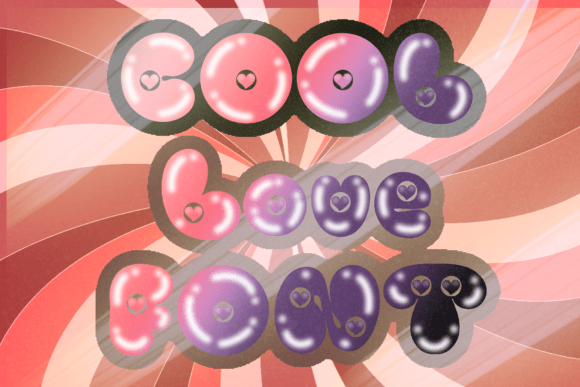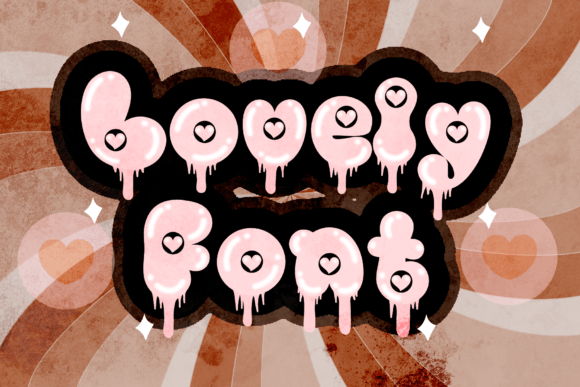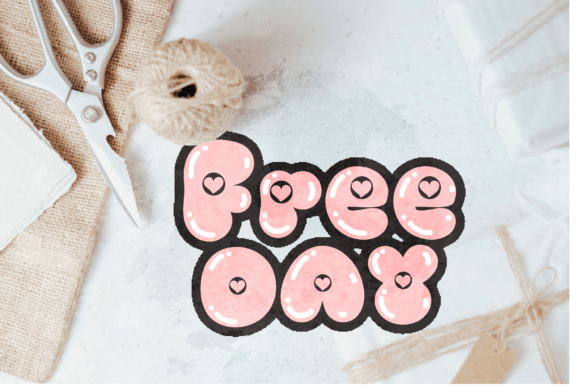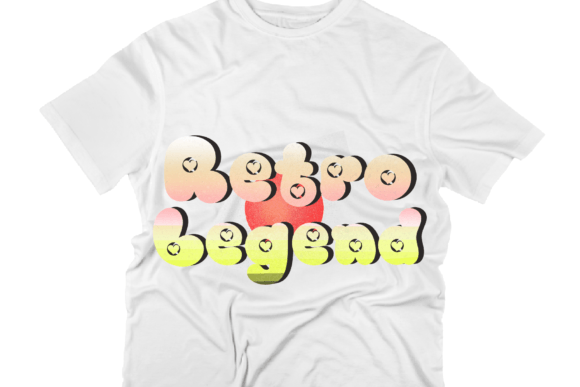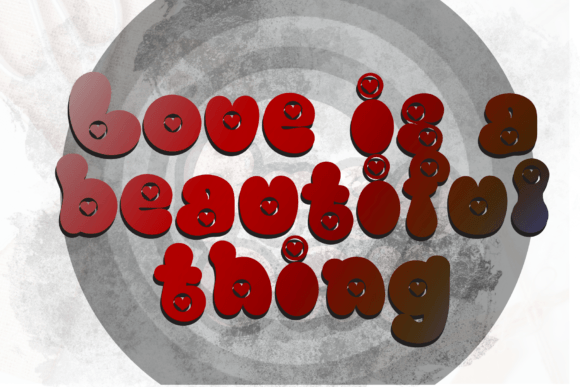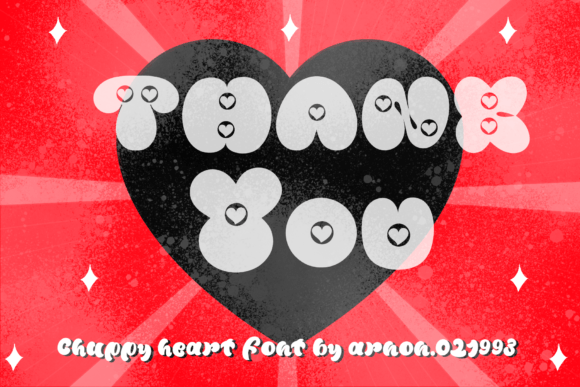
Introducing Chuppy Heart Font: The Ultimate Choice for Designers and Crafters
Are you a designer or crafter looking for a font that can add a touch of sweetness and charm to your projects? Look no further than the Chuppy Heart Font! This adorable font is perfect for a wide range of applications, from wedding designs and greeting cards to logos, branding materials, business cards, quotes, posters, shirts, mugs, and more.
What Makes Chuppy Heart Font So Special?
One of the standout features of Chuppy Heart Font is its extensive language support. With hundreds of international language support characters, you can use this font to create designs in English, French, Spanish, German, Polish, Italian, Portuguese, Latin, and many more languages. This makes it an ideal choice for designers and crafters who work with clients from diverse linguistic backgrounds.
Use Chuppy Heart Font for a Variety of Projects
The Chuppy Heart Font is incredibly versatile and can be used for a wide range of projects, including:
- Wedding designs: Create beautiful wedding invitations, programs, and decorations with this charming font.
- Greeting cards: Add a personal touch to your greeting cards with the Chuppy Heart Font.
- Logos and branding materials: Use this font to create unique and memorable logos and branding materials for your business or clients.
- Business cards: Stand out from the crowd with custom business cards featuring the Chuppy Heart Font.
- Quotes and posters: Create inspiring quotes and posters with this beautiful font.
- Shirts and mugs: Add a touch of personality to your apparel and accessories with the Chuppy Heart Font.
Why Choose Chuppy Heart Font?
So why should you choose the Chuppy Heart Font for your next project? Here are just a few reasons:
- Unique and charming design: The Chuppy Heart Font has a distinctive and adorable design that’s sure to capture attention.
- Extensive language support: With hundreds of international language support characters, you can use this font for projects in multiple languages.
- Versatile: The Chuppy Heart Font can be used for a wide range of projects, from wedding designs to logos and branding materials.
Get Creative with Chuppy Heart Font
If you’re looking for a font that can add a touch of sweetness and charm to your projects, look no further than the Chuppy Heart Font. With its extensive language support, versatile design, and easy-to-use format, this font is perfect for designers and crafters who want to create unique and memorable designs.
- Hundreds of international language support characters (English, French, Spanish, German, Polish, Italian, Portuguese, Latin, and more)
- Perfect for wedding designs, greeting cards, logos, branding materials, business cards, quotes, posters, shirts, mugs, and more
- Unique and charming design
- Extensive language support
| Author | arnon.021993 |